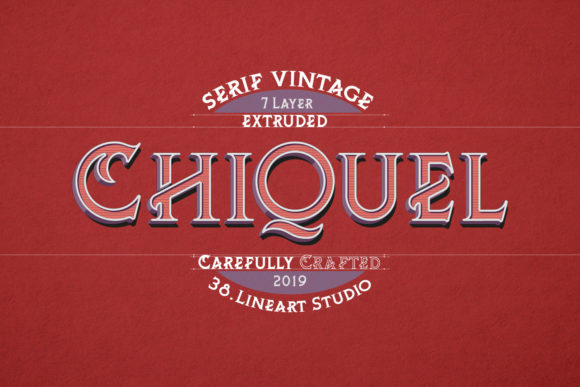
Introducing ChiQuel Serif Vintage Font, a timeless masterpiece that seamlessly blends elegance and vintage charm. This exquisite serif font, crafted by the renowned foundry 38.lineart, is not just a collection of letters but an invitation to unleash your creativity.
ChiQuel's allure lies in its intricately designed characters, each stroke imbued with a rich history that whispers tales of forgotten eras. Its sweeping curves and delicate flourishes evoke a sense of nostalgia, while its sharp, precise edges lend a touch of modernity.
Whether you're a seasoned designer or a budding enthusiast, ChiQuel will ignite your imagination. Its versatility knows no bounds, seamlessly adapting to any project you envision. From elegant invitations to captivating branding, vintage posters to stunning packaging, ChiQuel effortlessly elevates every design to new heights of sophistication.
Dive into the world of ChiQuel Serif Vintage Font and let its timeless beauty captivate your audience. Experience the joy of creating designs that resonate with emotion, evoke memories, and leave a lasting impression.